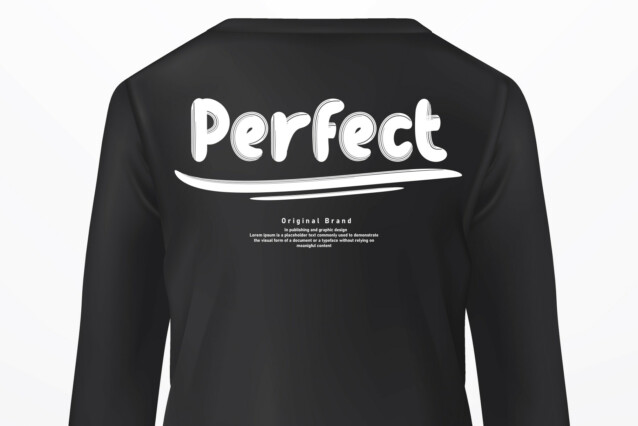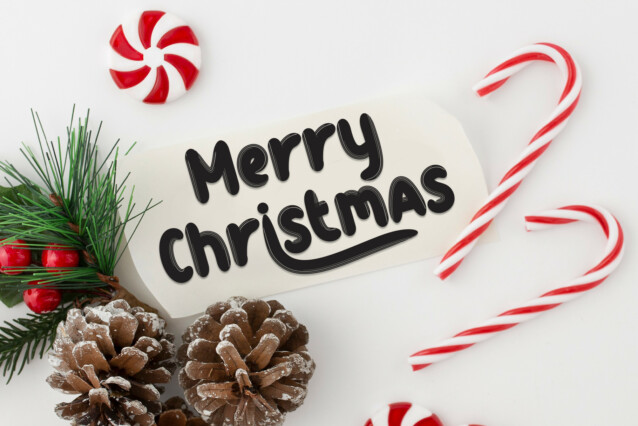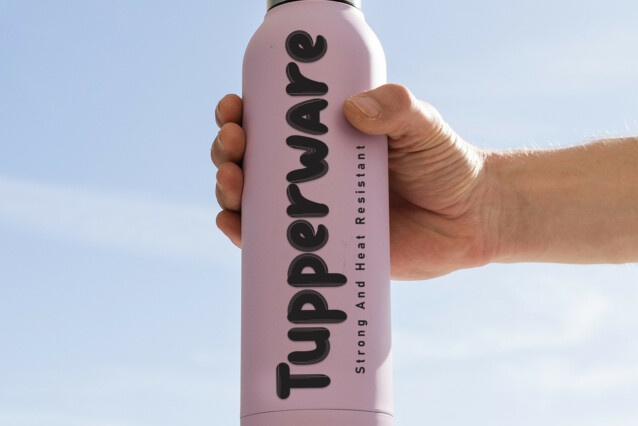
Summer Notes Display Font
Summer Notes Display Font is a hand-brushed typeface that’s perfect for adding a personal touch to your design projects! Crafted with care and attention to detail, this font is incredibly versatile and can be used for a range of design projects, including logos, branding, invitations, and more.